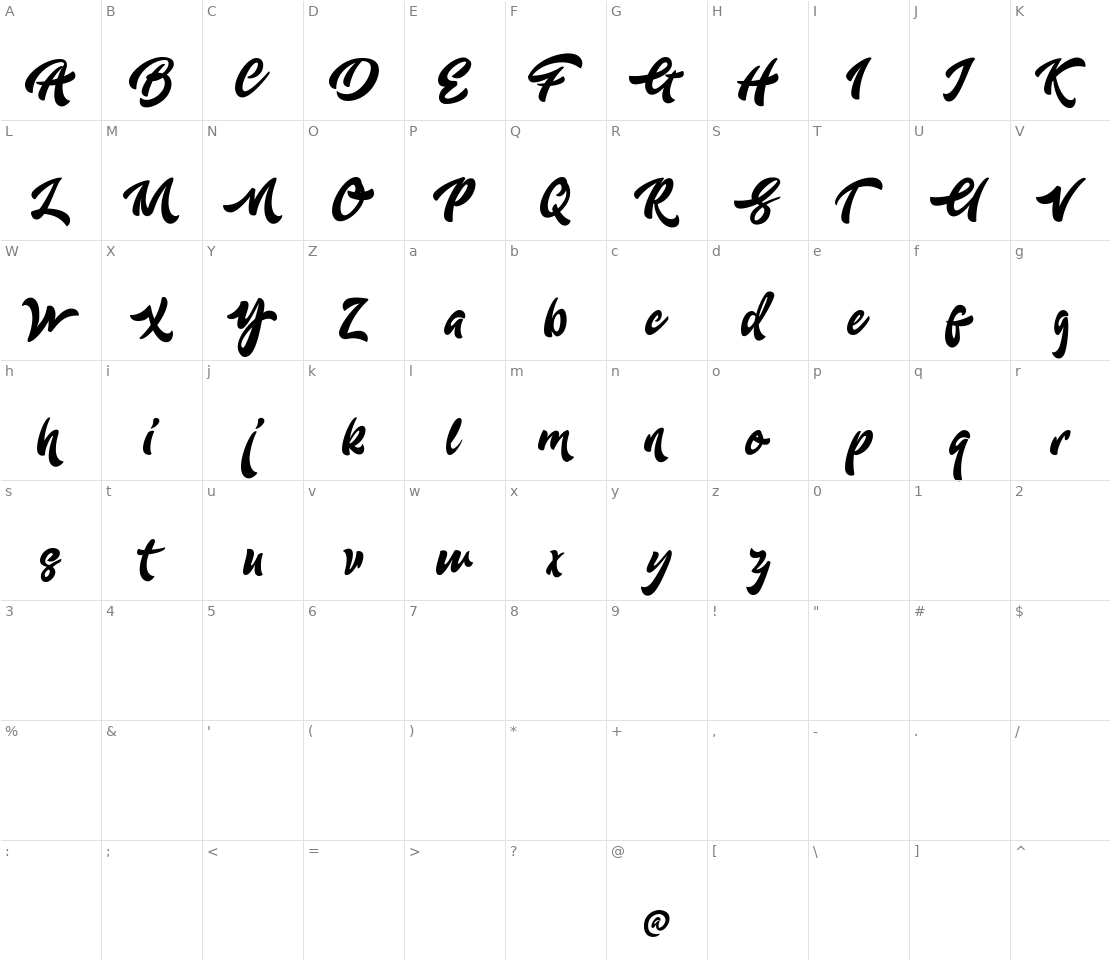
Adleit
by easetype
Adleit is a bold brush typeface from easetype with thick, expressive strokes that carry the energy of fast hand-lettering. The letterforms feel casual and dynamic, with visible brush texture that keeps things from looking too polished. A strong pick for headlines, posters, and branding where you want something that feels loose and confident.